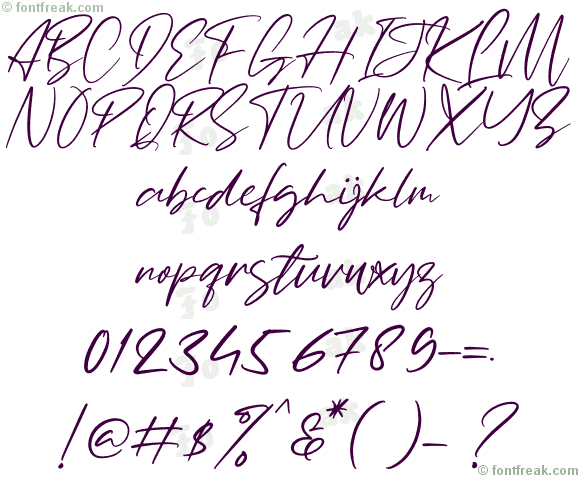
Bullgeria
About Bullgeria
Bullgeria, designed by Perspectype Studio in 2021, is an elegant script typeface that exudes a sense of sophistication and charm. This font features a fluid, cursive style characterized by its dynamic strokes and graceful curves. The stroke weight varies subtly, offering a beautiful contrast that enhances its visual appeal. The letterforms are well-spaced, ensuring legibility while maintaining an artistic flair. Decorative elements are tastefully integrated, making Bullgeria a versatile choice for various design applications.
This font is ideal for wedding invitations, where its romantic style can elevate the overall aesthetic. It's also perfect for fashion branding, as it captures a sense of luxury and exclusivity. Restaurant menus will benefit from Bullgeria's inviting character, enticing diners with its stylish presentation. Additionally, this font can be used effectively for social media graphics, enabling content creators to engage their audience with a touch of elegance. Graphic designers will find Bullgeria a valuable asset in their toolkit, thanks to its versatility and unique charm.
The target audience for Bullgeria includes graphic designers, small business owners, and content creators who seek a distinctive font that resonates with their brand identity. Its ability to convey emotion and style makes it a compelling choice for anyone looking to make a lasting impression.
What sets Bullgeria apart is its unique blend of elegance and readability, making it suitable for both formal and casual contexts. With its free license, the Bullgeria font free download allows users to incorporate this exquisite typeface into their projects without any constraints. Whether for personal or commercial use, Bullgeria is sure to captivate and inspire.